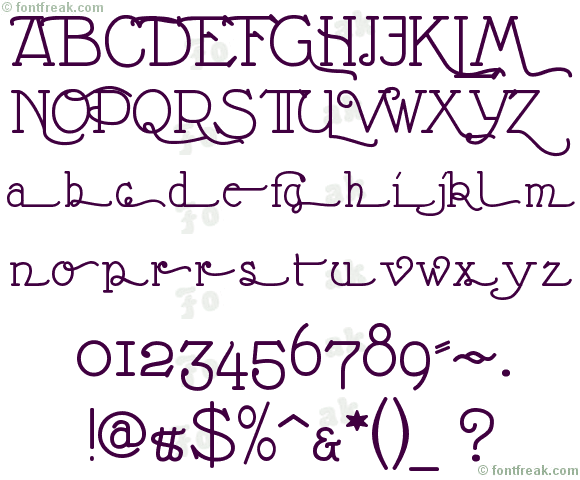
Nathan Alternates Semi-expanded Regular
Nathan Alternates Semi-expanded Regular, designed by Peter Wiegel, is a unique display font that falls within the category of decorative typefaces. This font showcases a playful and whimsical style with its semi-expanded letterforms, making it stand out in various design contexts. The strokes are characterized by a moderate weight, offering a balanced contrast that enhances readability while maintaining a charming aesthetic. The spacing between the letters is thoughtfully designed, allowing for clear communication without sacrificing visual appeal.
This font is particularly well-suited for a range of creative applications. It shines in wedding invitations, where its elegant yet informal vibe can complement romantic themes. Additionally, Nathan Alternates Semi-expanded Regular is ideal for movie posters, where its distinctive style can capture attention and convey a sense of fun. Restaurant menus can also benefit from this font, as it adds a touch of personality that can enhance the dining experience. Content creators looking to infuse their projects with a unique flair will find this font an excellent choice for social media graphics and branding.
What truly sets the Nathan Alternates Semi-expanded Regular font apart is its blend of whimsy and functionality. The distinct character of the font brings a fresh perspective to design projects, allowing users to create engaging visuals that resonate with their audience. For anyone seeking to enhance their creative toolkit, the Nathan Alternates Semi-expanded Regular font free download is an opportunity not to be missed.